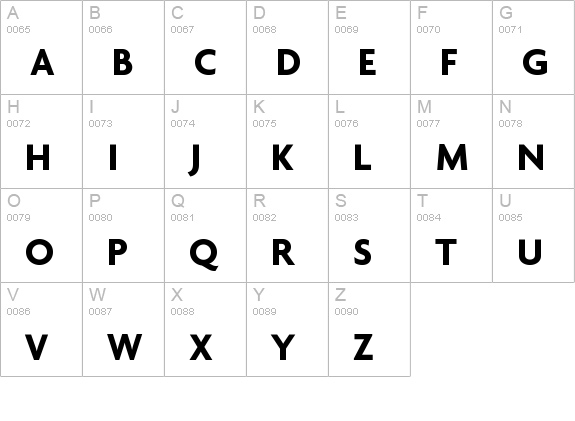
Agenda-Bold Font Details
Agenda-Bold is a strong, high-contrast variant in the Agenda typeface family \xE2\x80\x94 well suited to headlines, attention-grabbing titles, and strong calls-to-action.
Agenda-Bold is a modern and versatile font that exudes confidence and professionalism. With its bold and striking appearance, this font is perfect for making a statement in your designs. Whether you are creating posters, logos, or social media graphics, Agenda-Bold will help your text stand out and grab attention. The best part? Agenda-Bold is available for free download at FontsMarket.com. This means you can easily incorporate this sleek and stylish font into your projects without breaking the bank. Don't miss out on this fantastic opportunity to enhance your designs with the bold elegance of Agenda-Bold. Download it today and elevate your typography game to new heights.